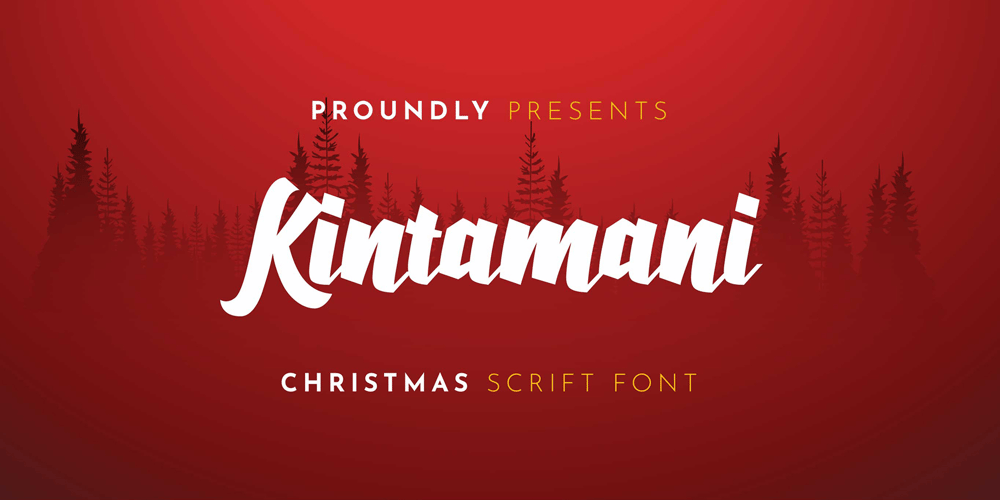
Kintamani
Kintamani Font Family was designed by Amrullah Medan, Amrullah, Dedi Purwanto and published by Ably Creative. Kintamani contains 1 styles and family package options. Kintamani font is a casual handwritten font perfect for design purposes, web, logos, brochures, business cards, online stores, t-shirt designs, mockups, invitation cards, wedding cards, flyers, posters and more. Kintamani font beautiful typographic harmony for a diversity of design projects, including logos & branding, social media posts, advertisements & product designs. This font is PUA encoded which means you can access all of the glyphs and swashes with ease! Make stunning work with Kintamani font!